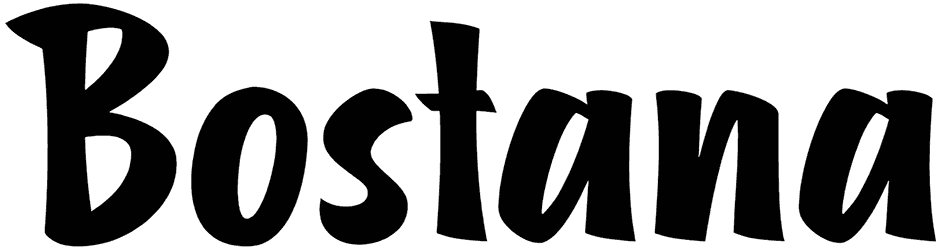
Bostana Font
Bostana adds an old approach to your writing projects, but also brings fun with a more modern cartoon vibe, taking on classic elements.
This script font is suitable for designers who do not want to risk using illegible and fancy letters in their designs and are looking for an accessible font for all kinds of projects. Placing Bostana on a t-shirt or placing it in the title of a poster can double the impact of the design.